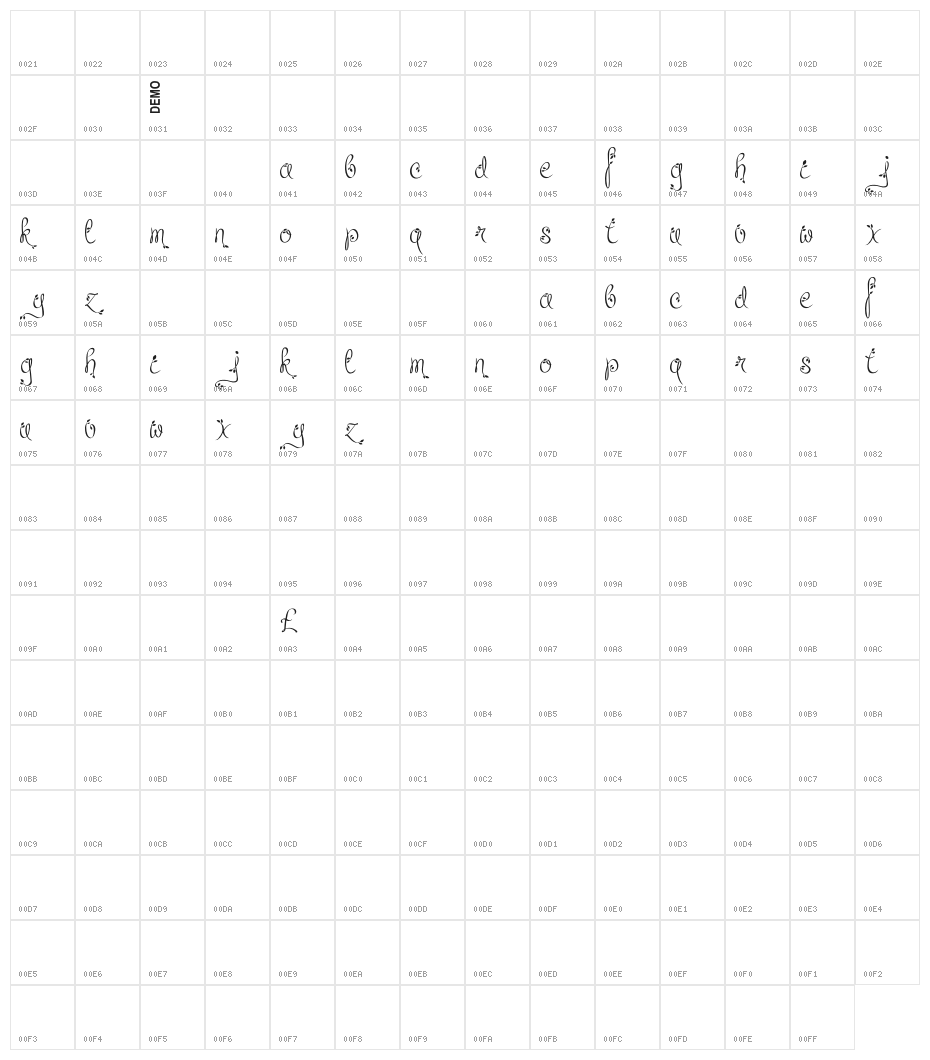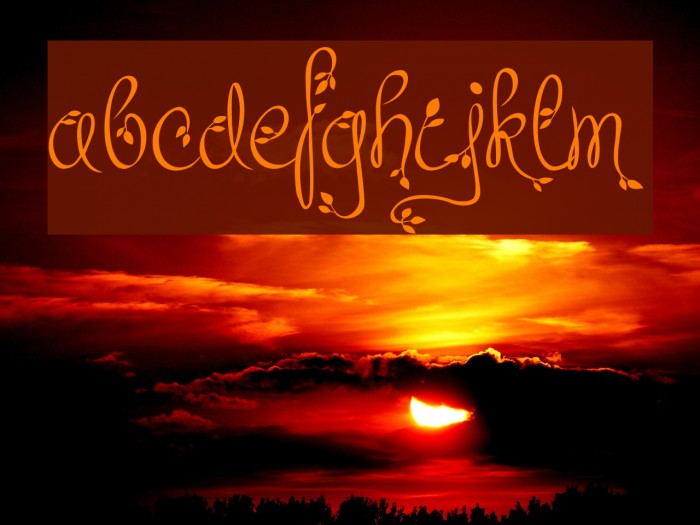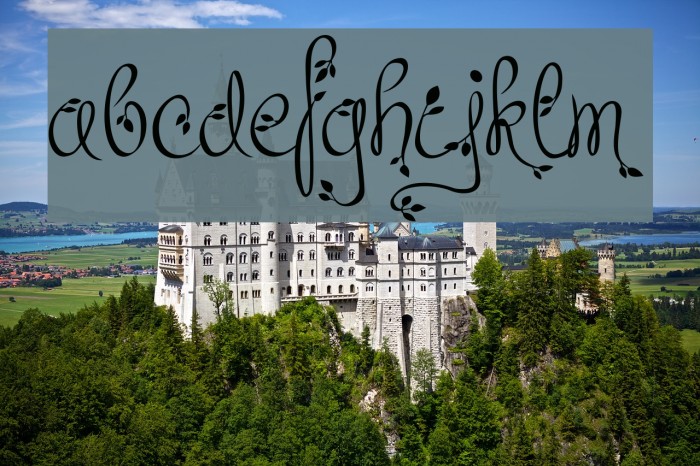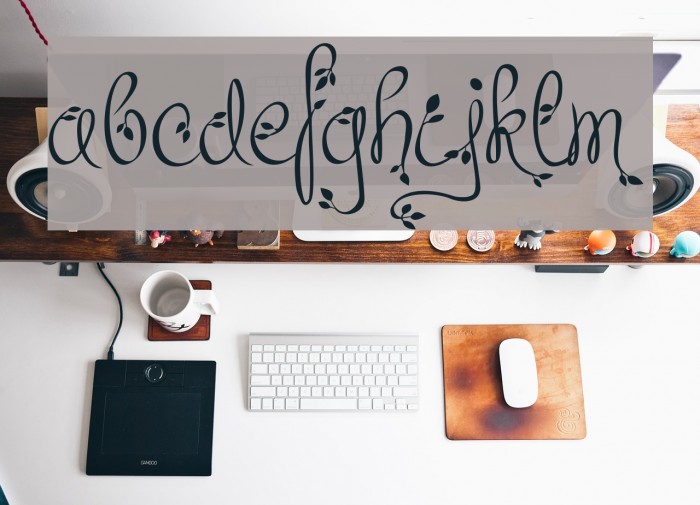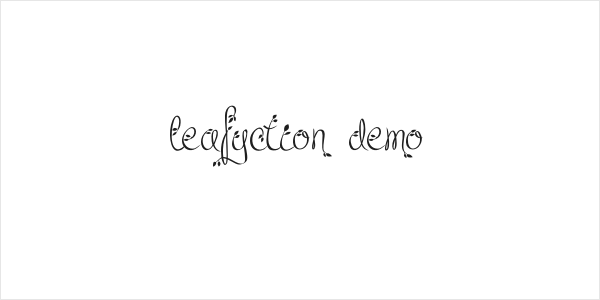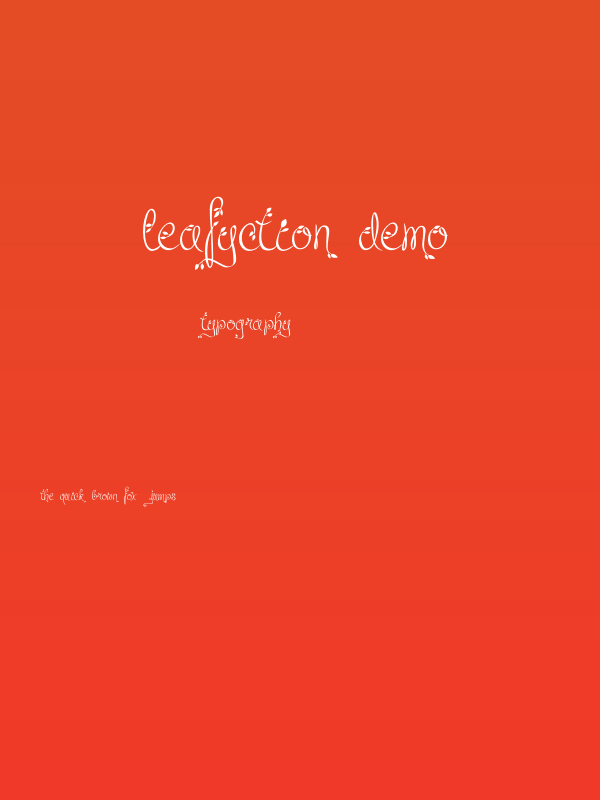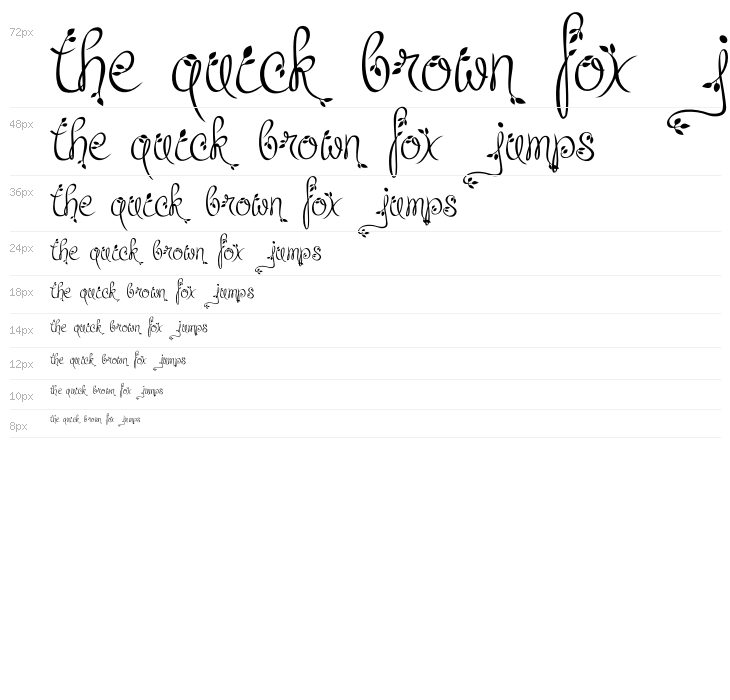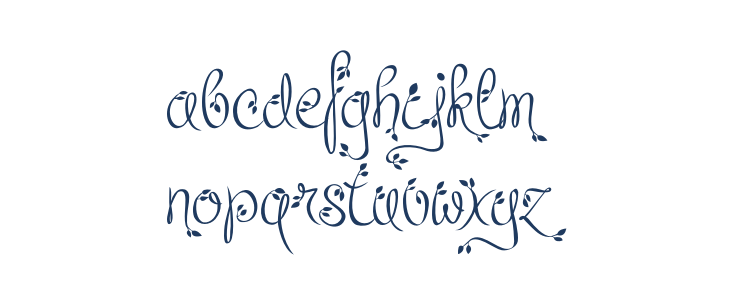
Leafyction Demo Font
Leafyction Demo Description
This font features a whimsical and organic design, with each letter adorned with leaf-like embellishments that give it a natural and playful appearance. The strokes are smooth and flowing, resembling vines or tendrils, which adds a unique decorative element to the text. The overall look is both elegant and artistic, making it suitable for projects that require a touch of nature or creativity. The font maintains a consistent style across both uppercase and lowercase letters, ensuring readability while still offering a distinct visual flair.
| Proposed Projects | Ideal for eco-friendly branding, invitations, greeting cards, and nature-themed designs. |